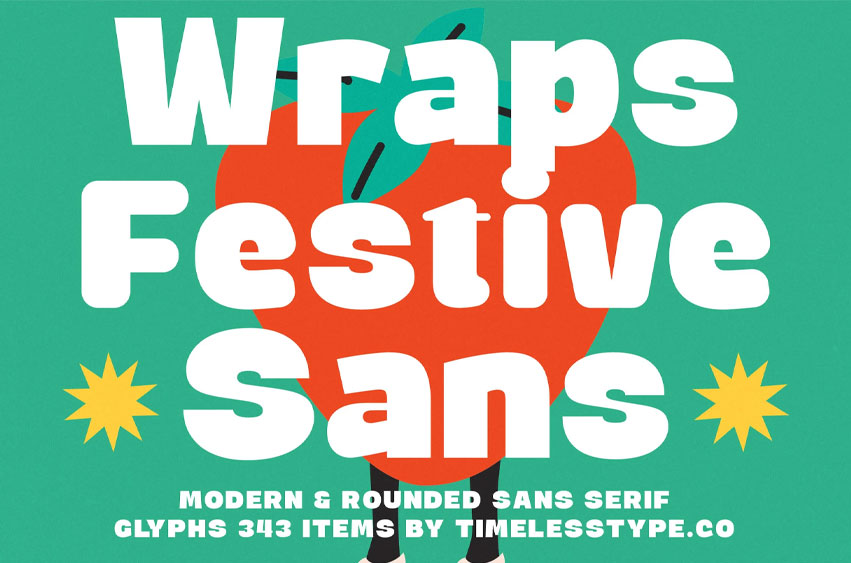
Wraps Festive Font Sans is a modern, rounded sans-serif font designed to bring a bold, cheerful, and playful look to your projects. Its smooth curves and fun proportions make it perfect for branding, packaging, posters, children’s designs, social media, and eye-catching headlines. With a friendly personality and versatile usability, Wraps Festive Sans is ideal for both digital and print projects that need a touch of joy and modern simplicity.